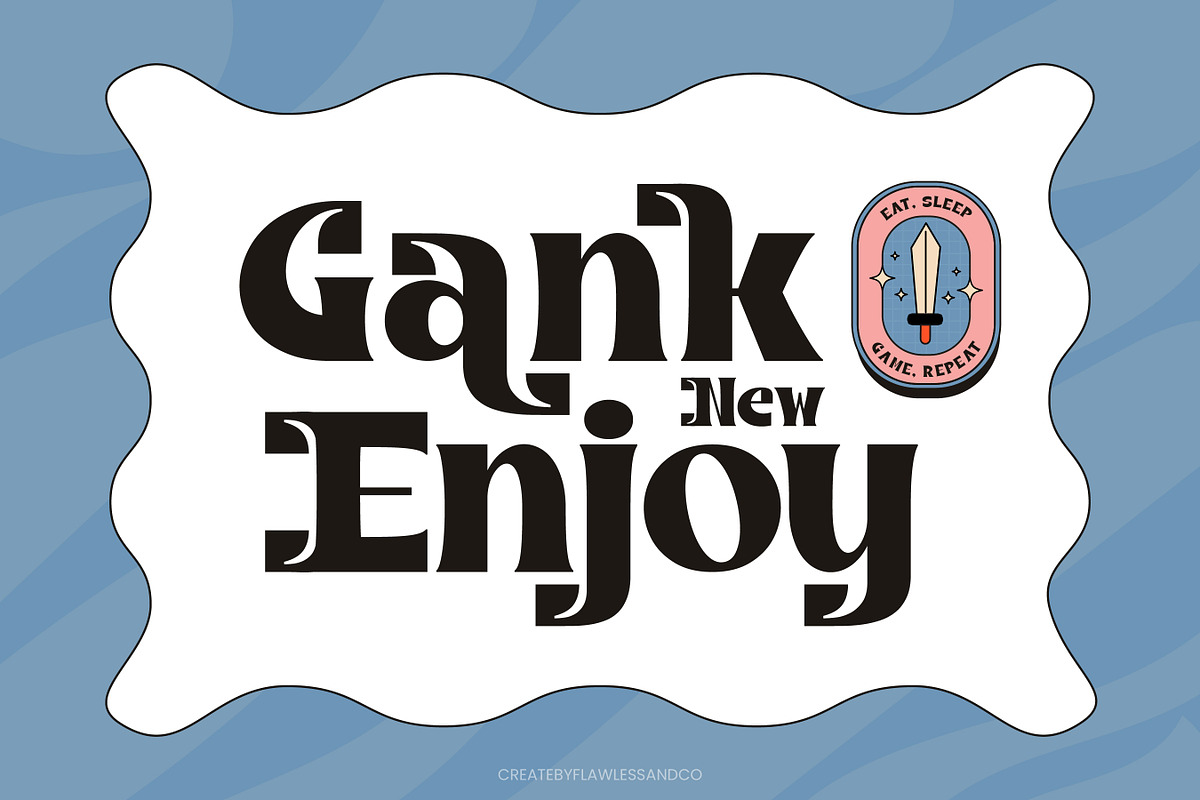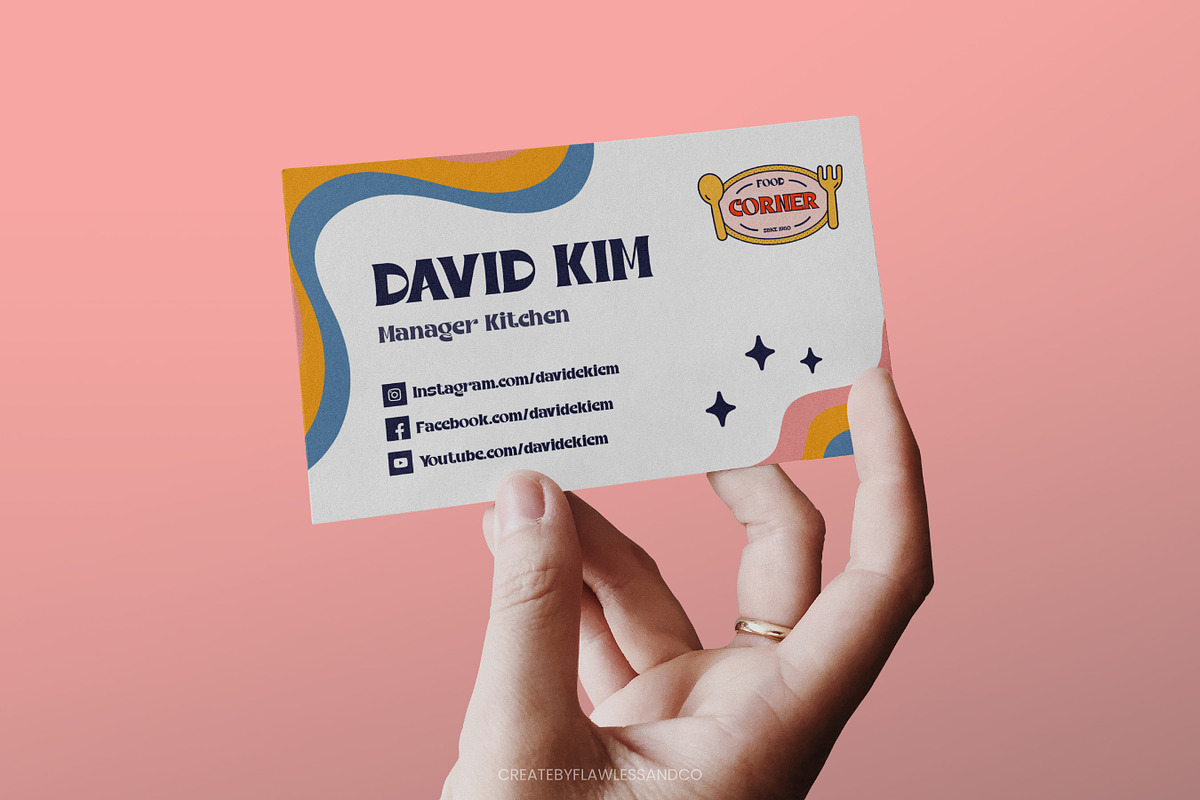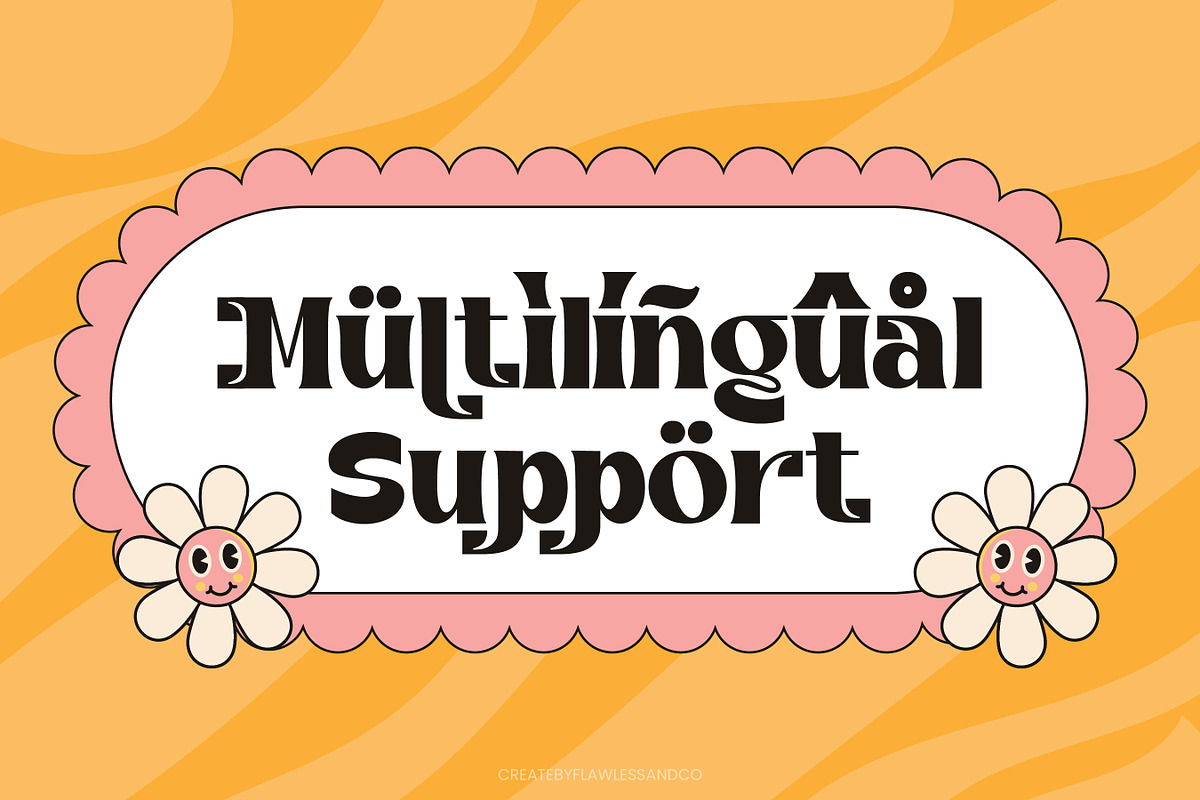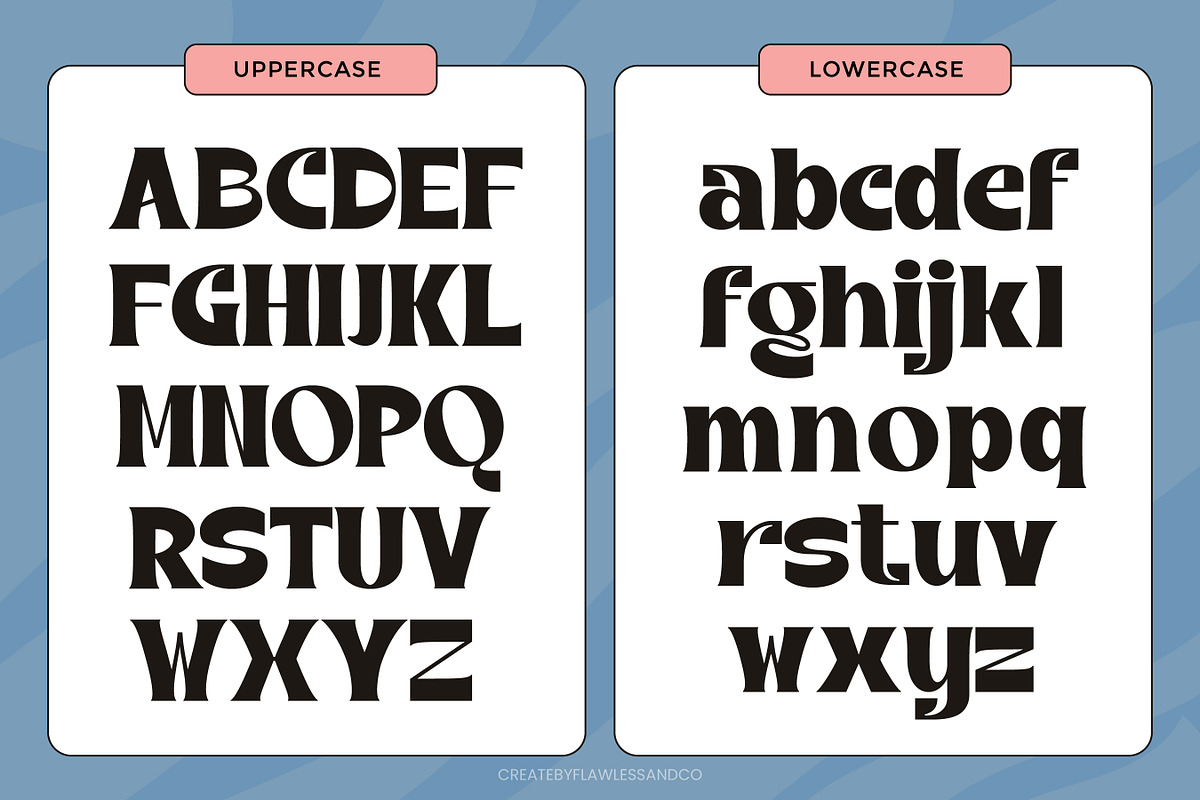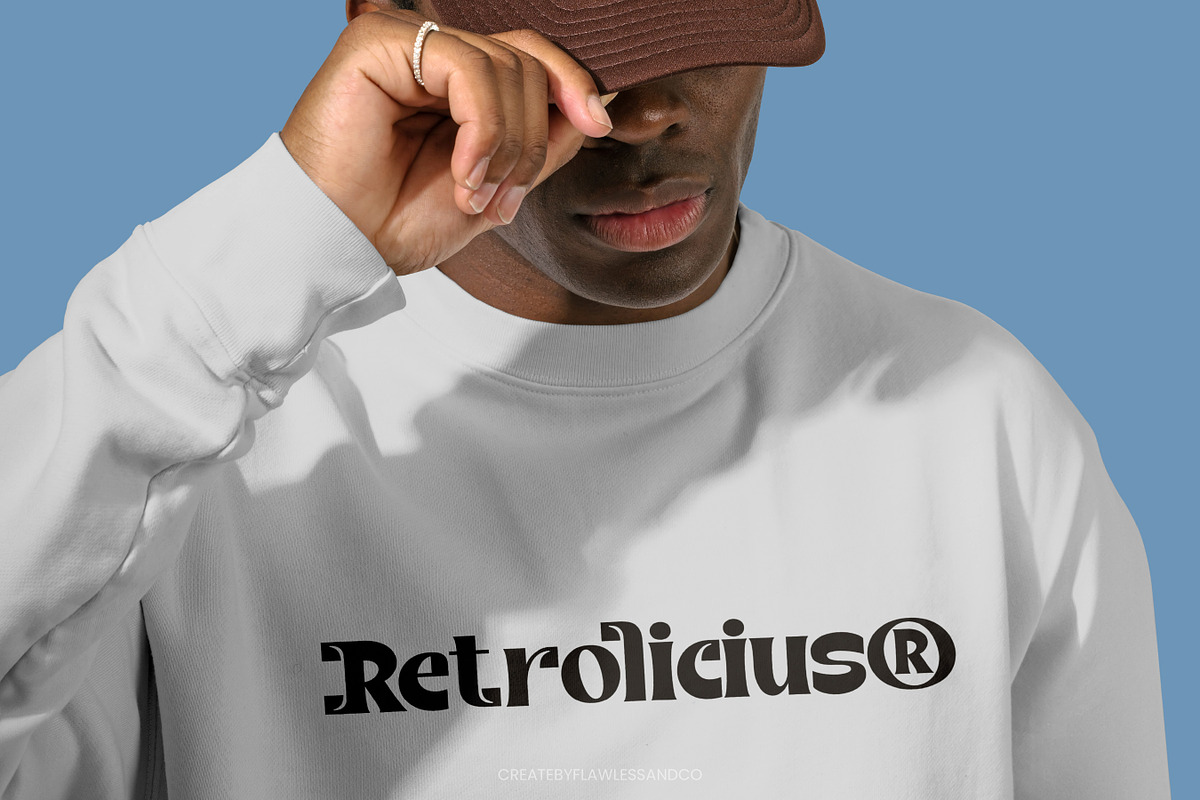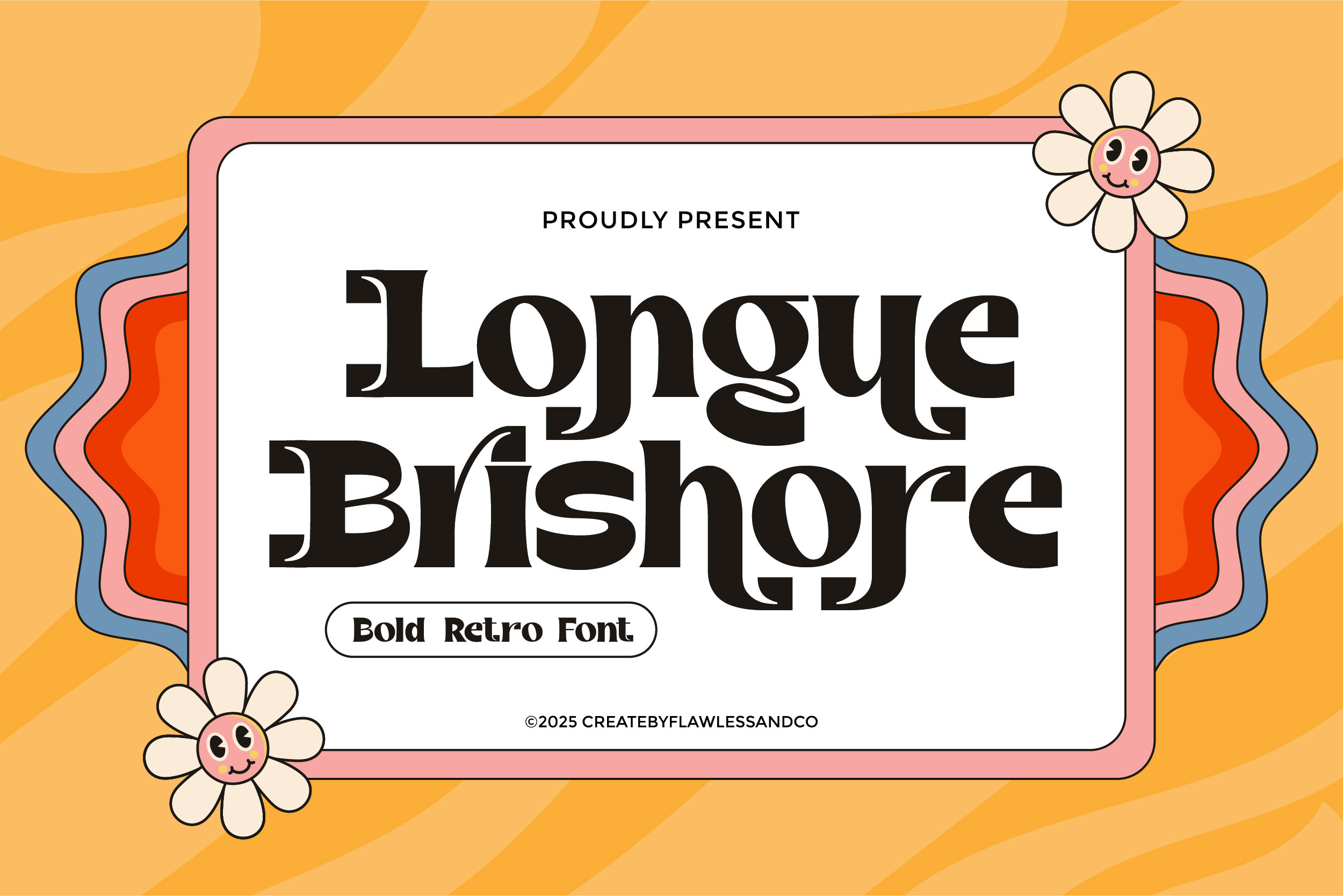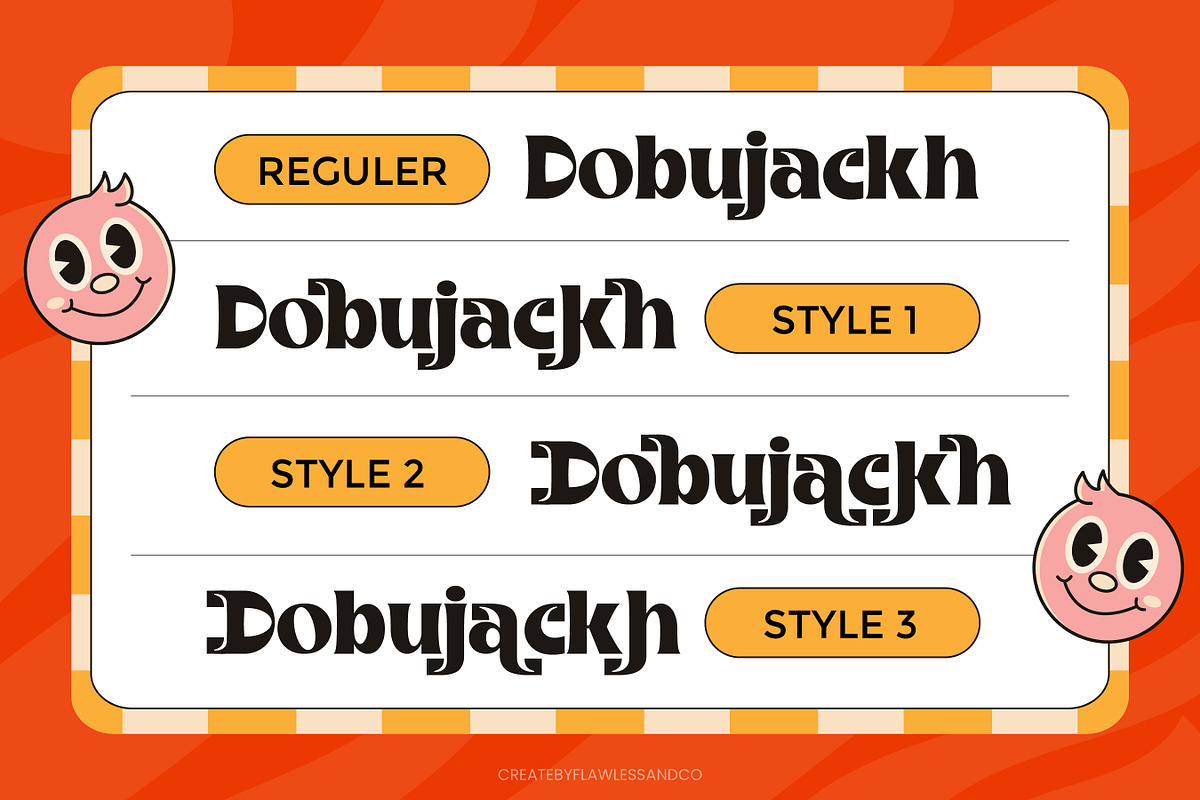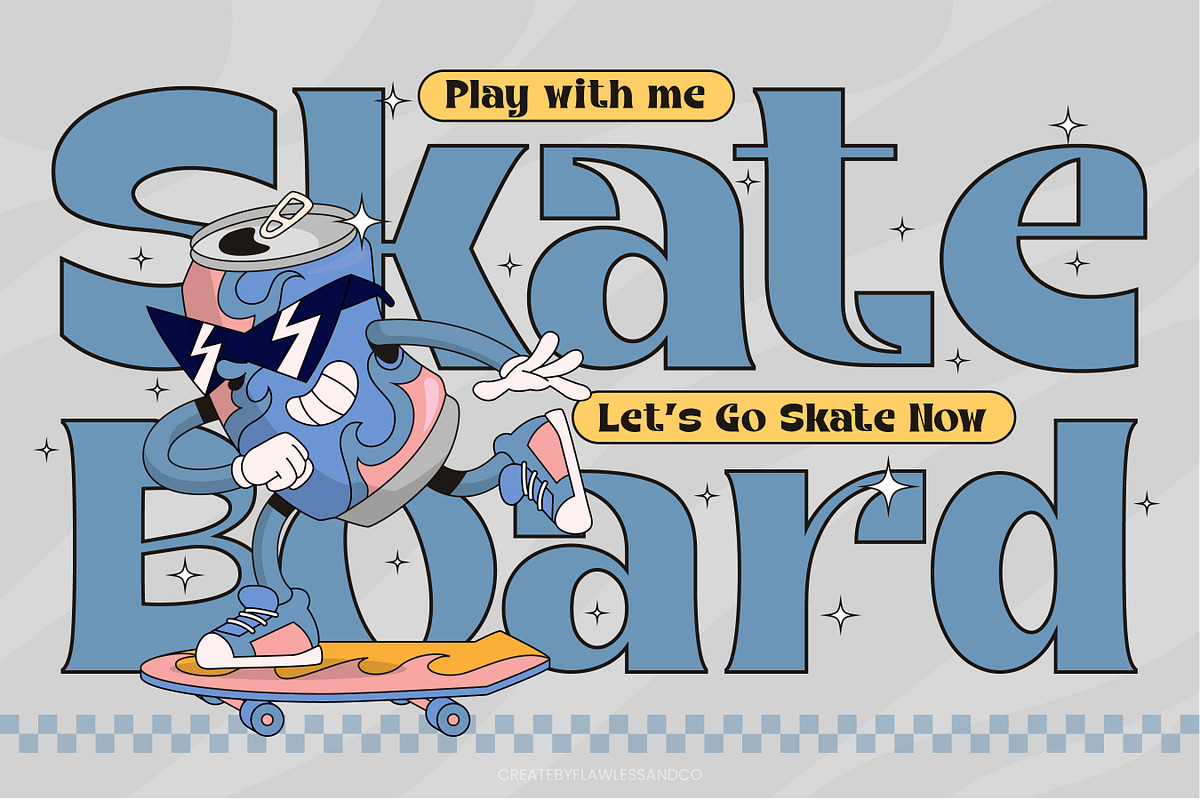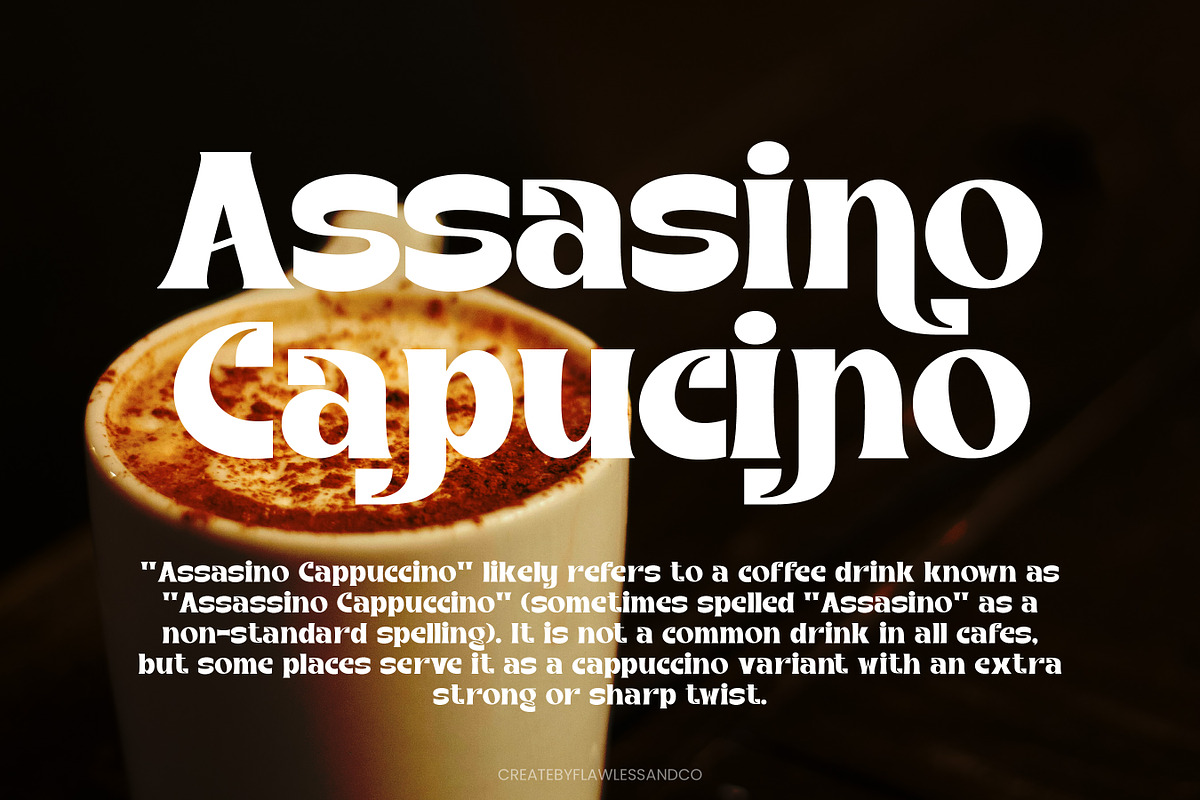
Longue Brishore - Retro Font
Longue Brishore - Bold Retro Font
Longue Brishore is a bold retro font that captures the essence of vintage charm with a modern twist. Its thick curves, unique letterforms, and playful energy make it a go-to typeface for creatives who want to stand out. Whether you’re crafting vibrant logos, eye-catching packaging, quirky posters, or nostalgic social media graphics — Longue Brishore adds flair, fun, and unforgettable personality to every project.
Who Should Use Longue Brishore?
Longue Brishore is made for creatives who want to blend boldness with nostalgic flair. This font is perfect for:
- Retro-inspired branding and packaging designers
- Logo makers who love standout, curvy type
- Social media creators looking for unique, playful typography
- Merch and apparel designers who want a groovy vintage feel
- Poster, sticker, and label artists who love expressive fonts
If you're building a brand with personality, Longue Brishore belongs in your type toolbox.
A Must-Have Font for Brand Creators and Designers
Longue Brishore isn’t just another retro font — it’s a bold design statement. Created for brand creators and designers who want to infuse vintage charm with modern energy, this typeface adds flair and impact to logos, packaging, headlines, and more. With its stylish curves and striking look, Longue Brishore turns every design into a memorable experience.
Why Choose Longue Brishore for Branding Projects?
Longue Brishore brings a bold dose of retro charm to any brand identity. With its curvy letterforms and strong personality, this font instantly grabs attention while staying stylish and approachable. Whether you're designing packaging, creating a vintage-inspired logo, or crafting playful visuals, Longue Brishore helps your brand stand out with confidence and character. It’s not just a font — it’s a vibe.
Suitable For:
- Retro-inspired brand identities and logo design
- Cafe menus, coffee shop branding, and packaging
- Creative social media graphics and vintage ads
- Music or lifestyle merchandise with retro vibes
- Editorial layouts and bold headline treatments
- Posters, stickers, and t-shirt design with character